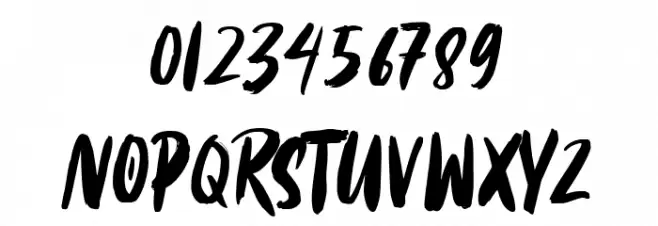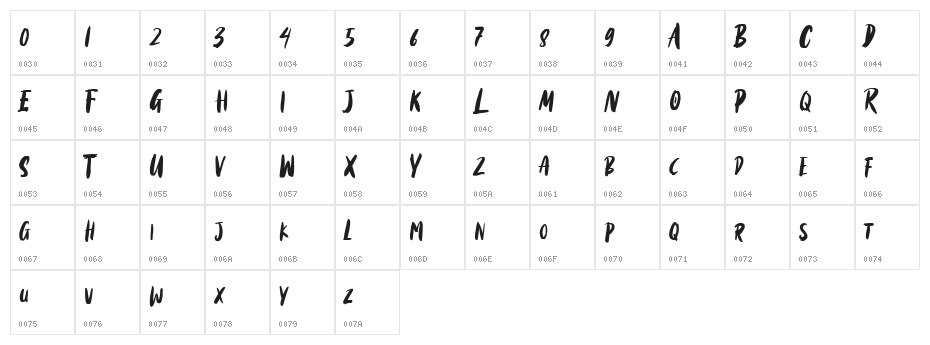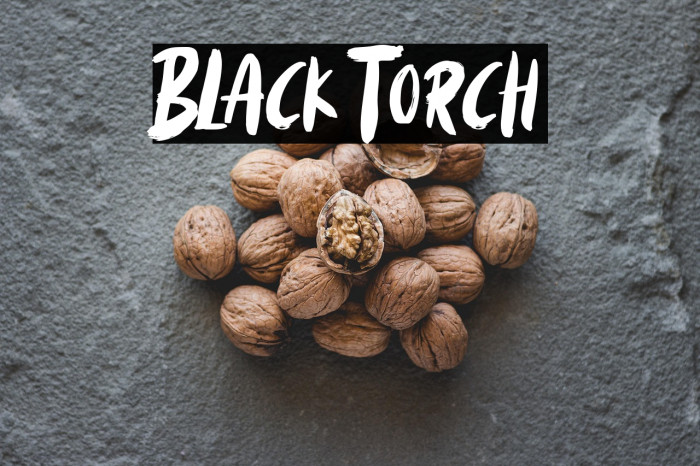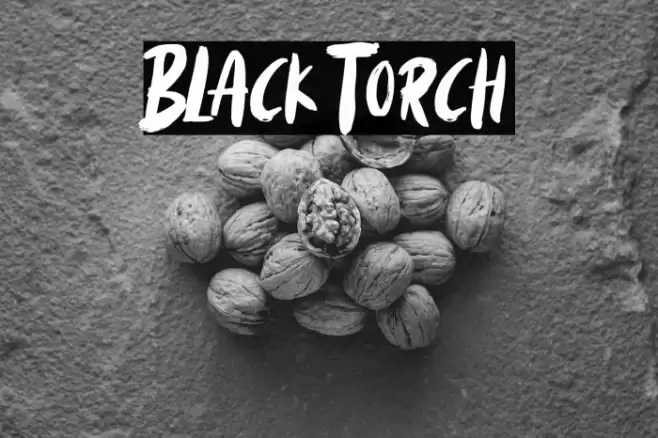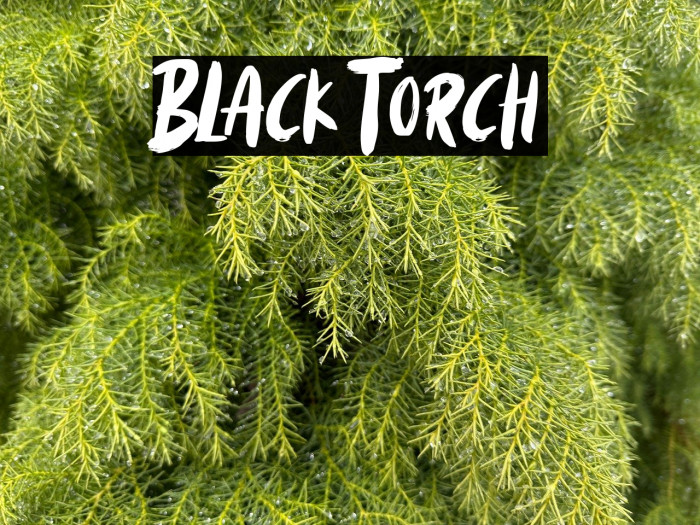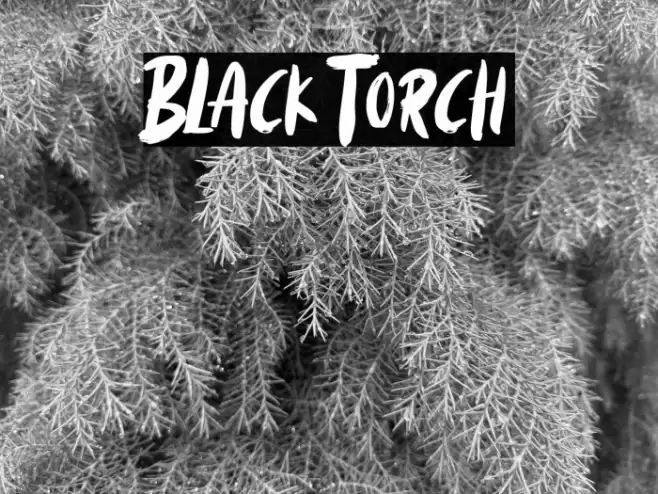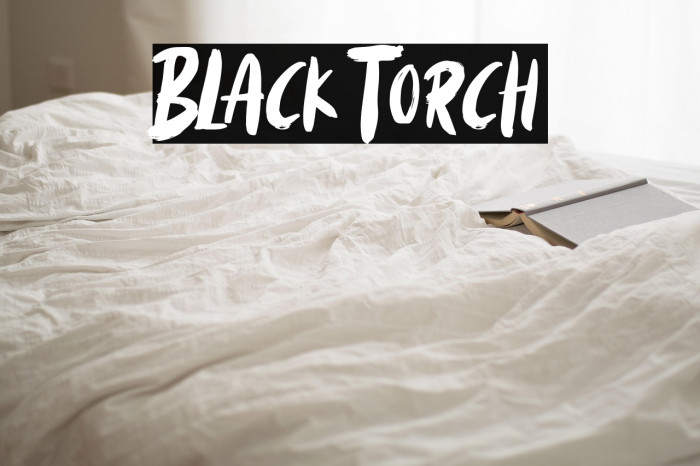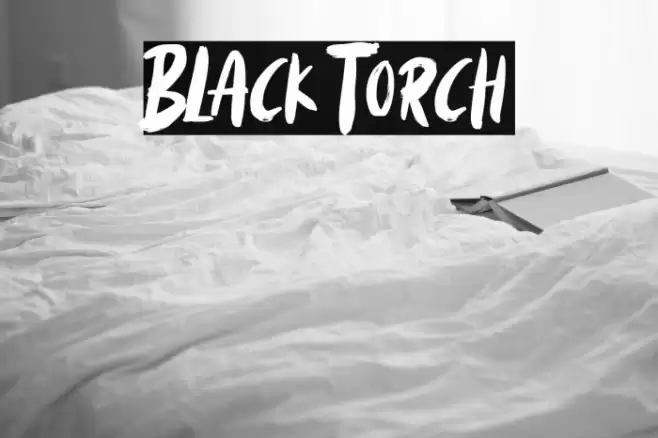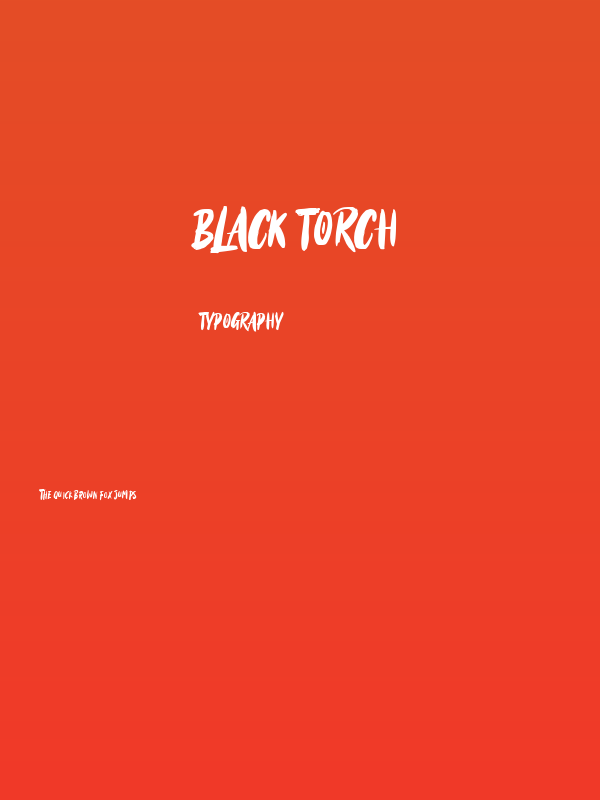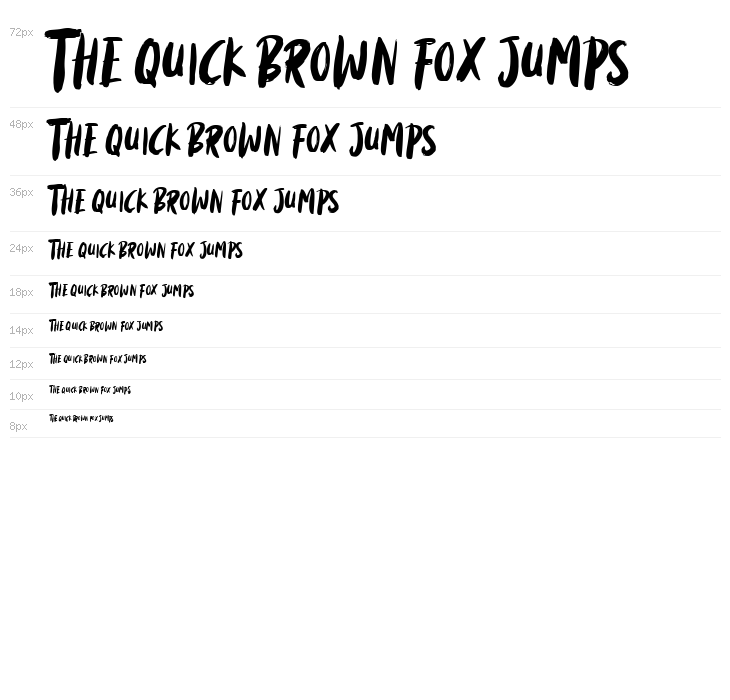
Black Torch Font
Black Torch Description
This font features a bold, brush-like style that exudes energy and dynamism. The strokes are thick and uneven, giving it a hand-painted appearance that is both artistic and expressive. Each character is distinct, with a slight slant that adds to the sense of movement. The uppercase and lowercase letters maintain a consistent style, while the numbers and special characters integrate seamlessly, maintaining the overall aesthetic. This font is perfect for projects that require a bold statement, capturing attention with its unique and creative flair.
Proposed ProjectsIdeal for posters, branding, headlines, and creative designs that require a bold and artistic touch.